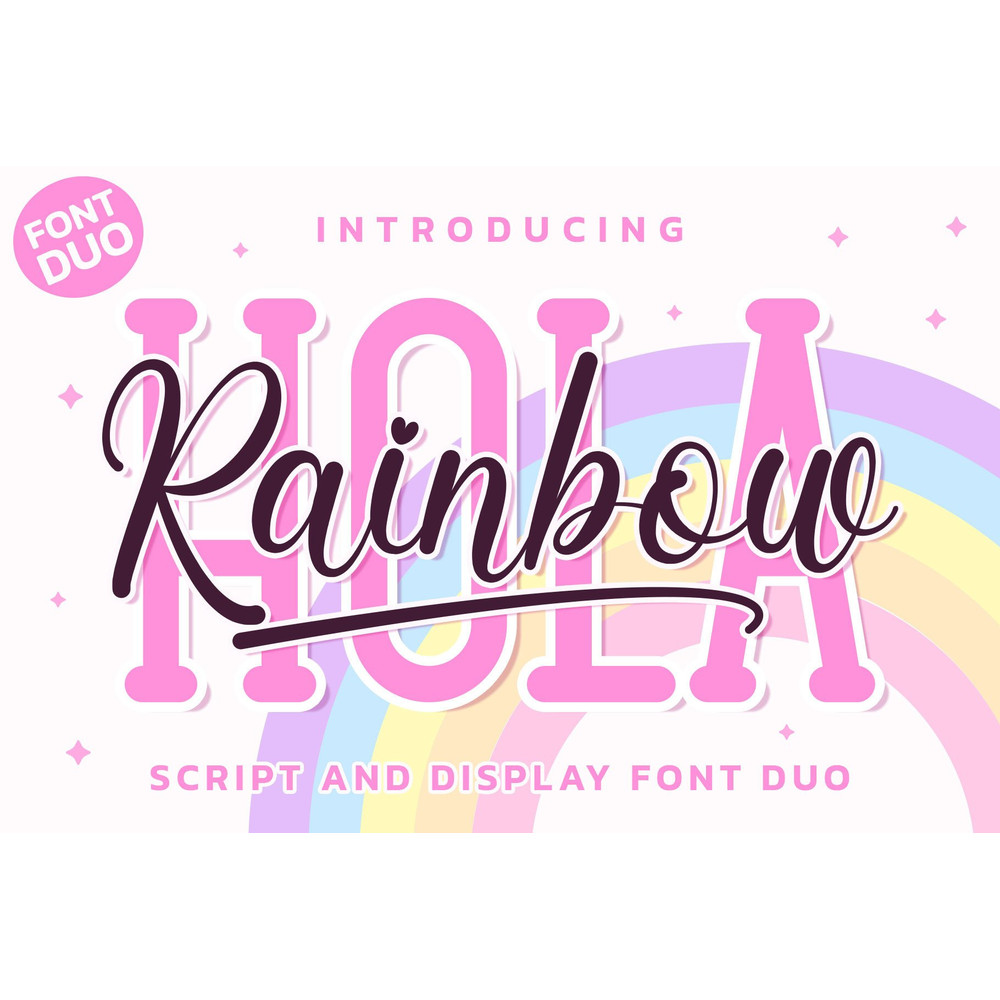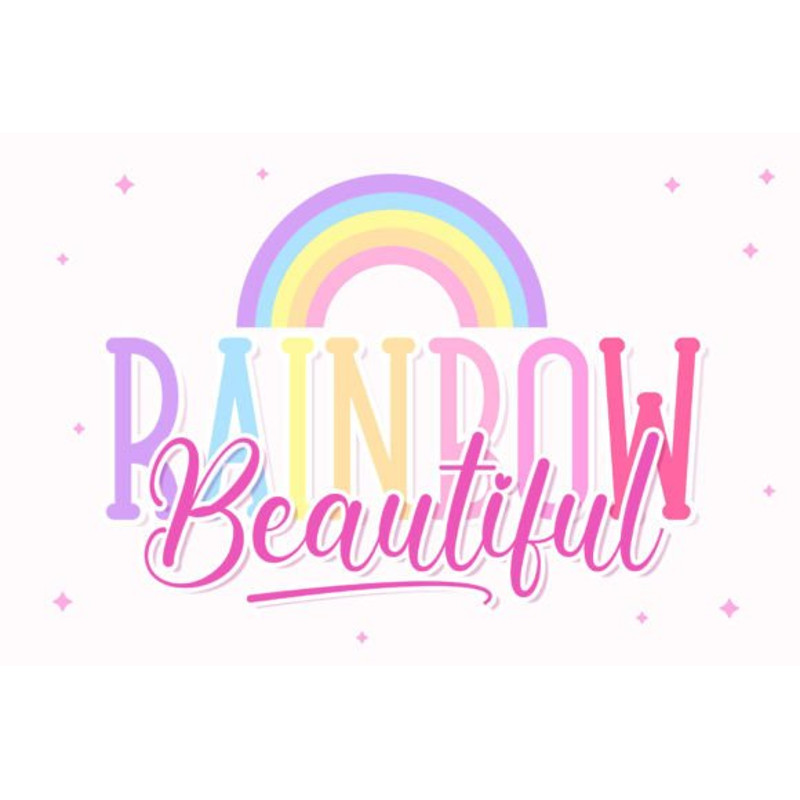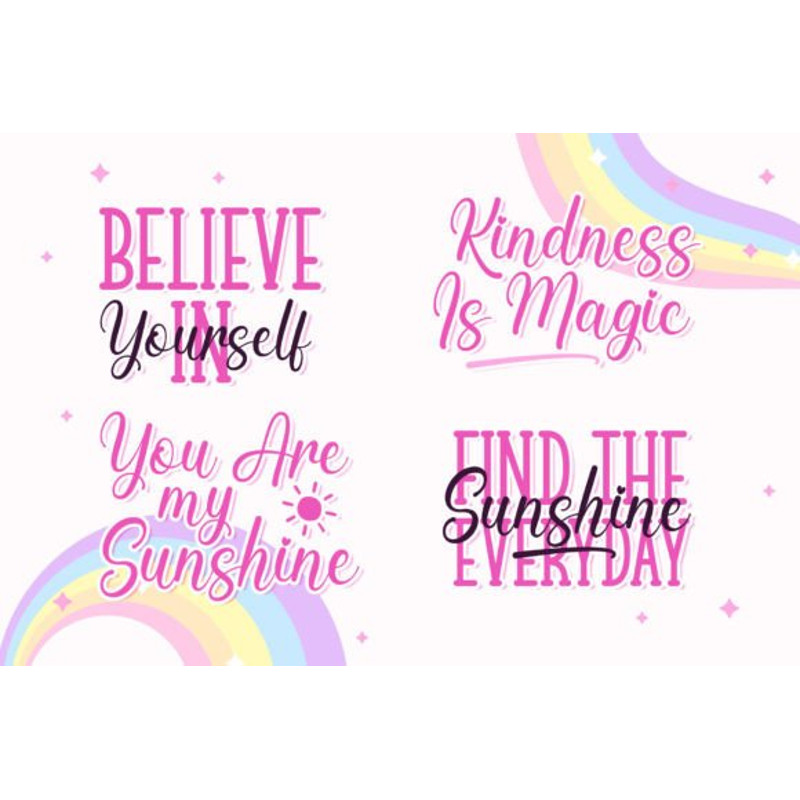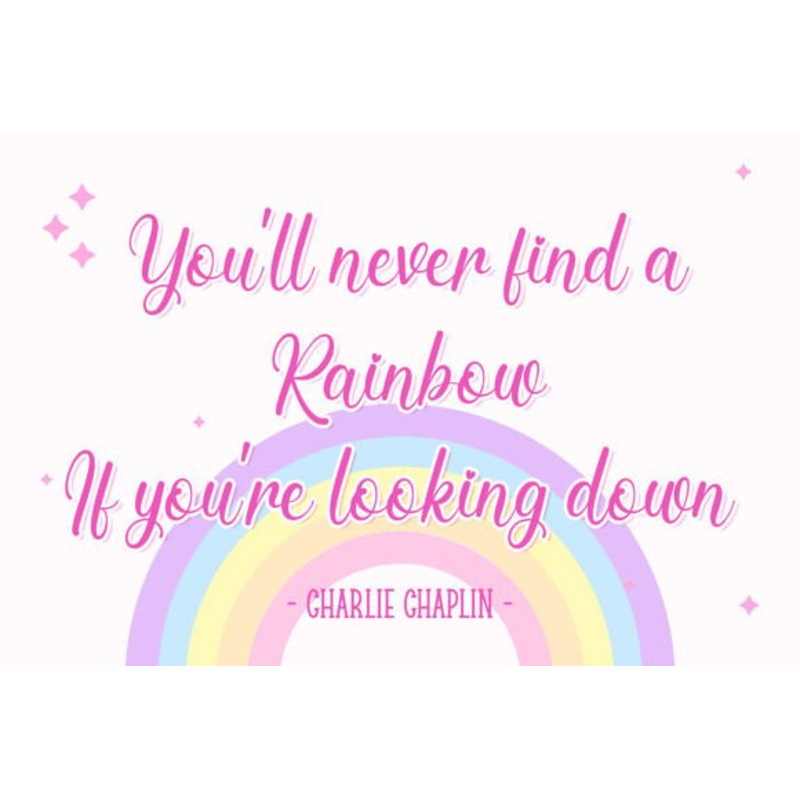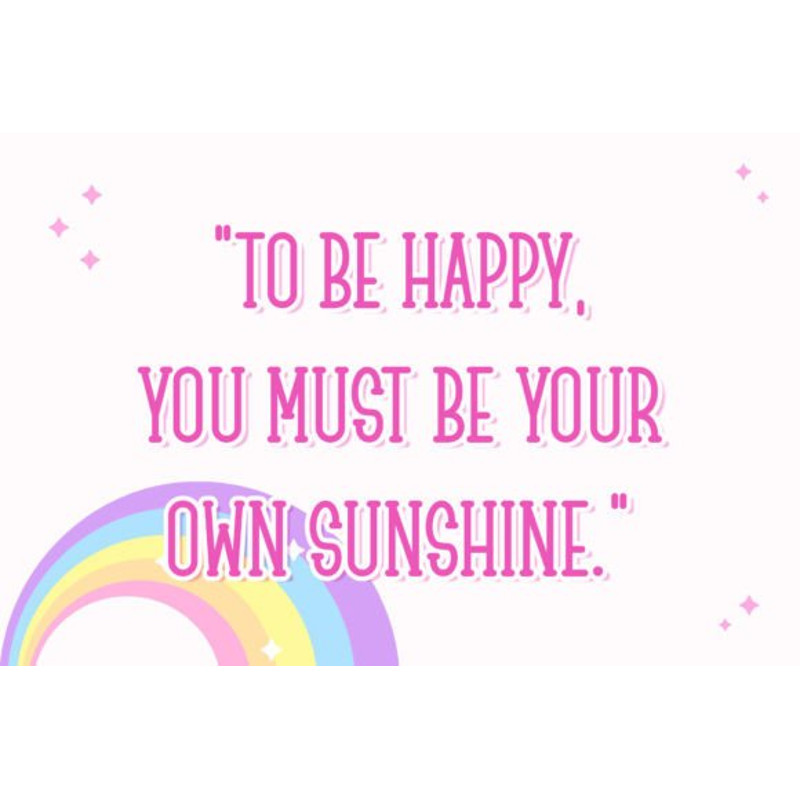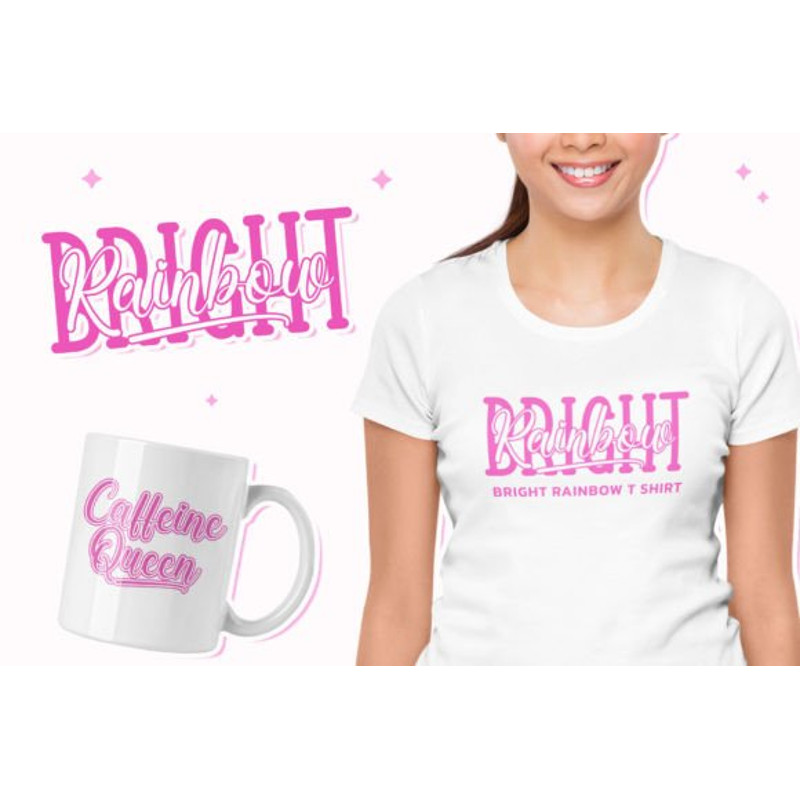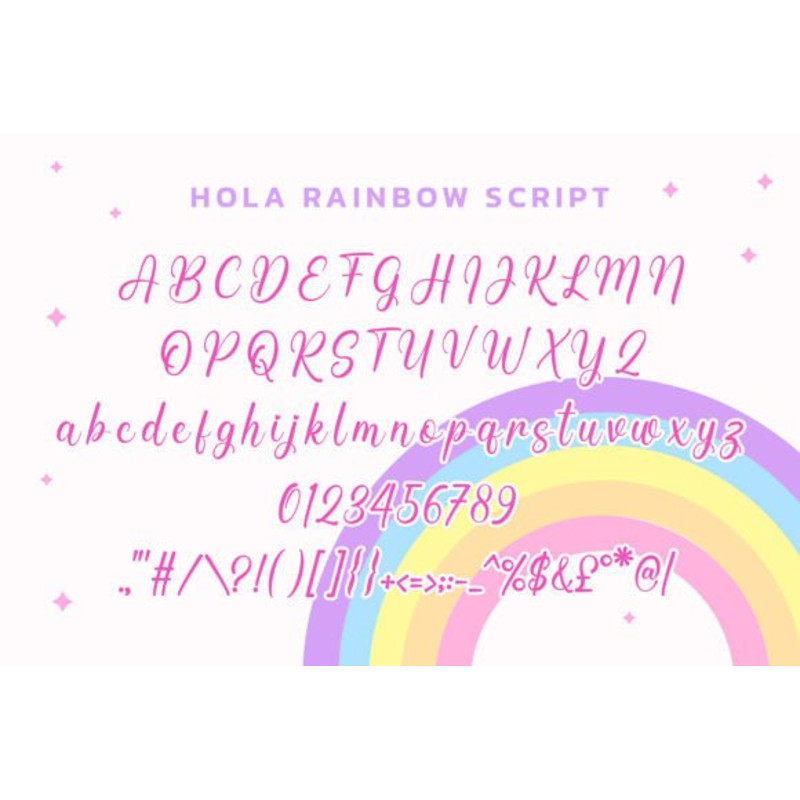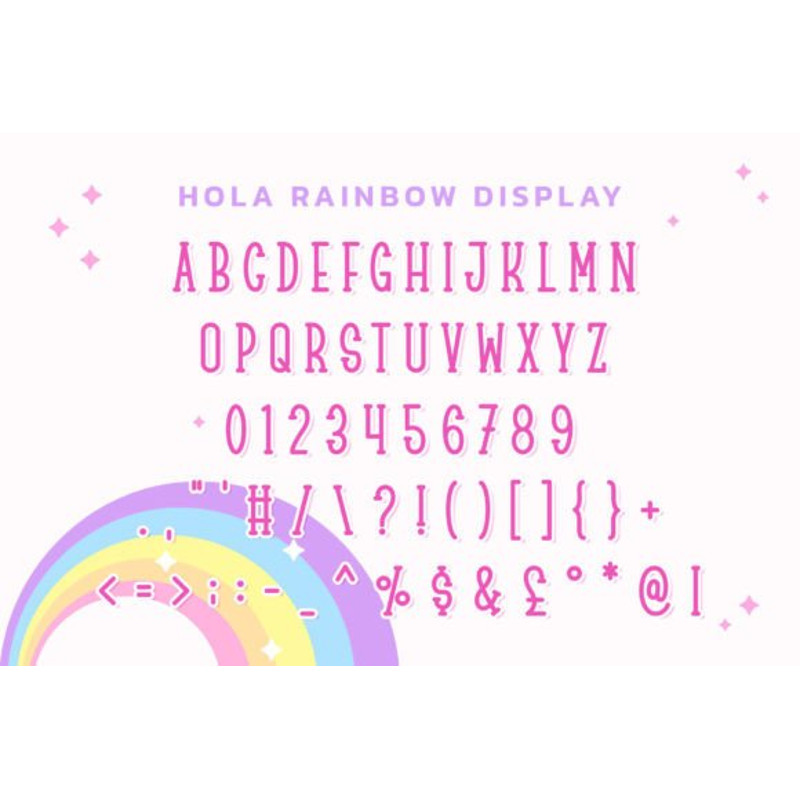
Hola Rainbow is a fun and playful font duo with a stylish script and serif display font. This typeface is fresh and lovely and is suitable for cute and attractive rainbow designs.
Hola Rainbow Duo Font